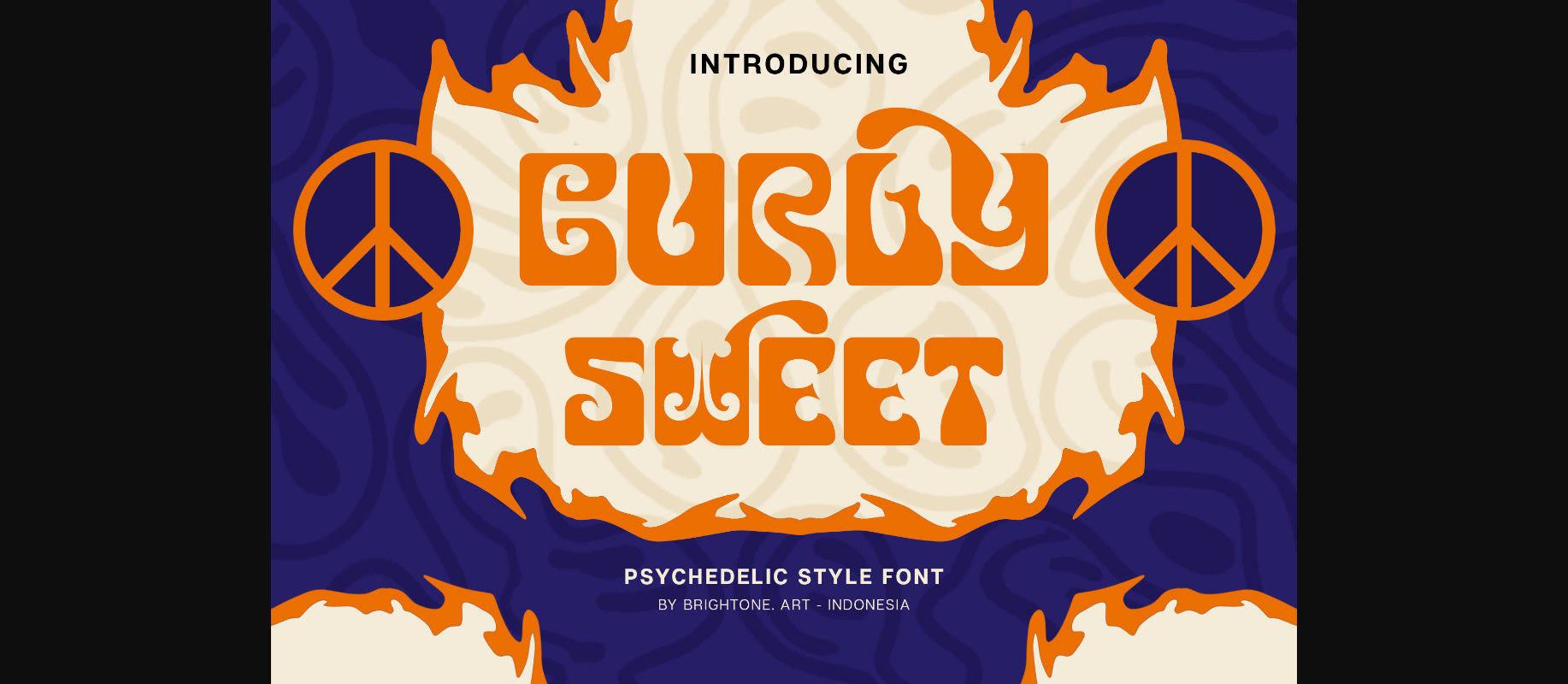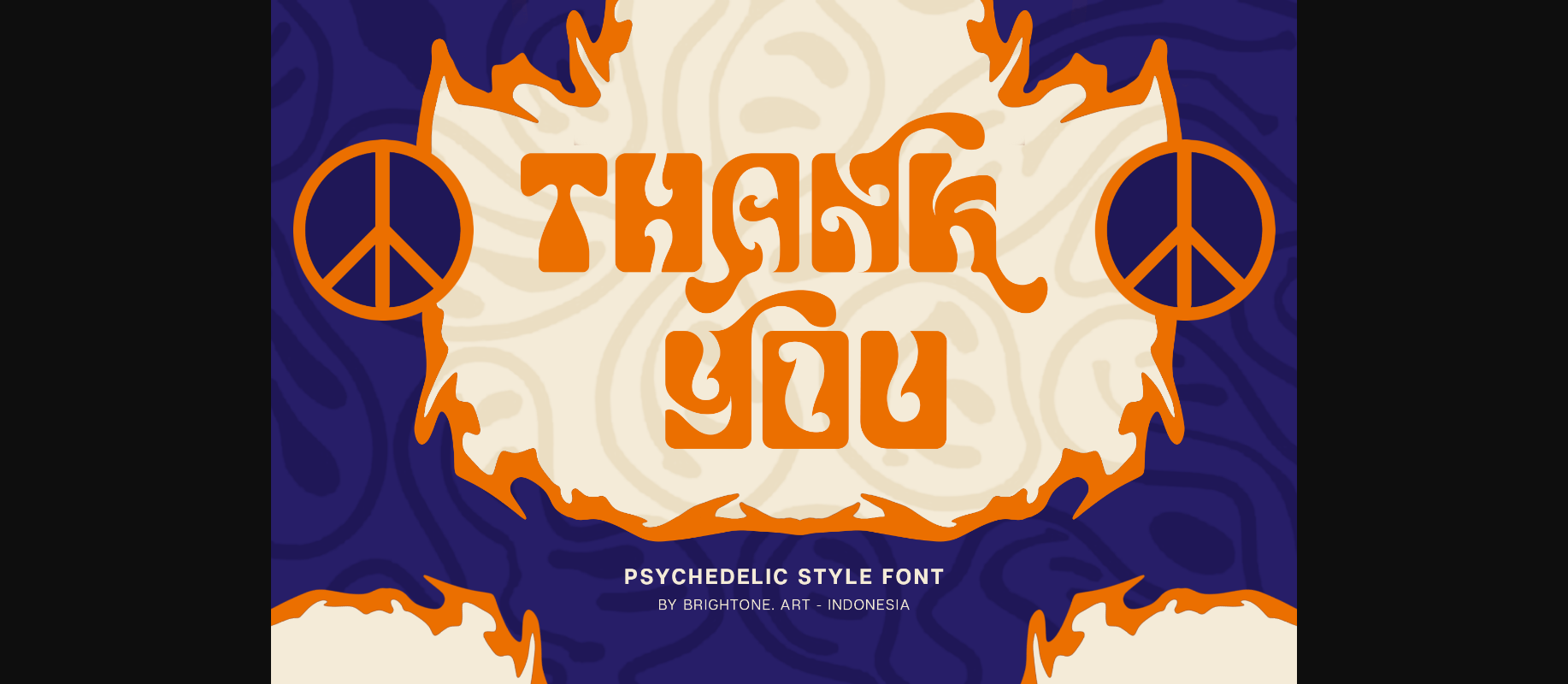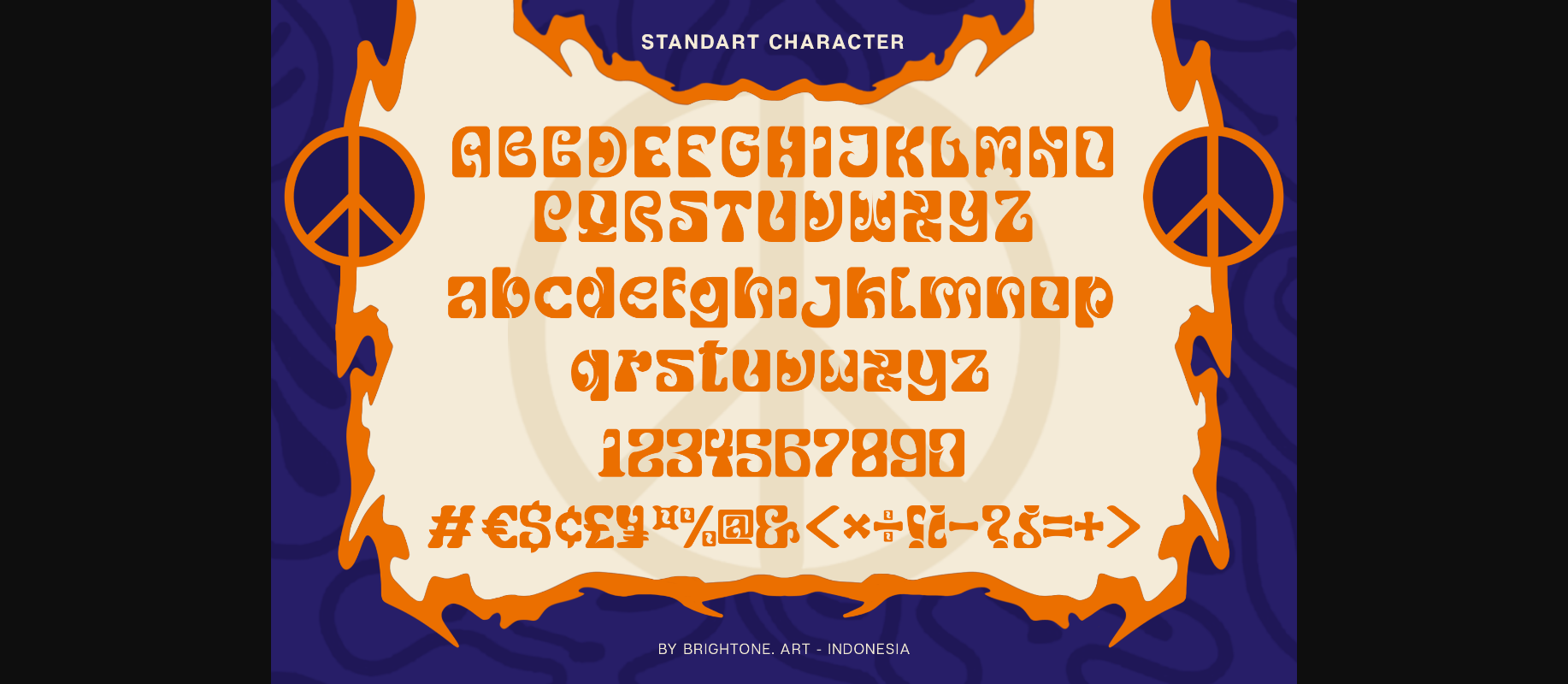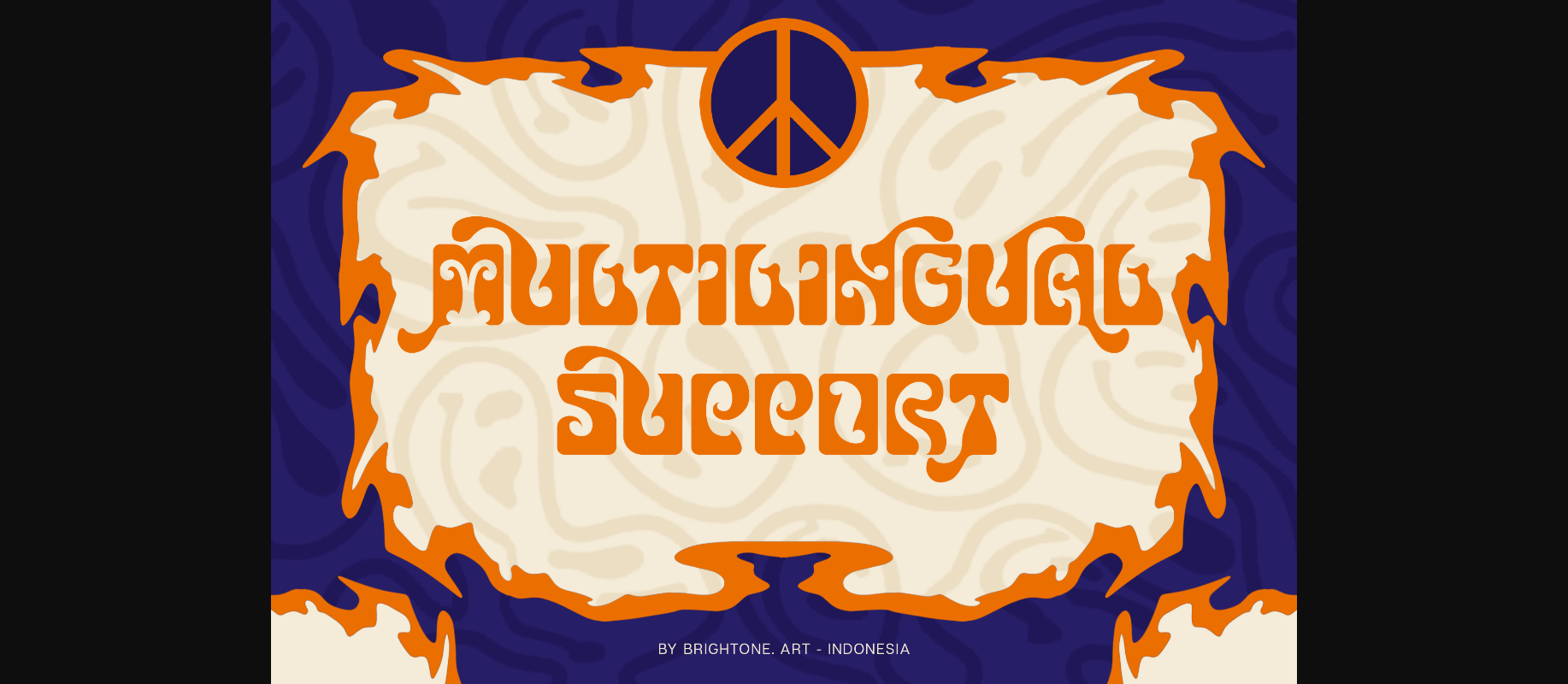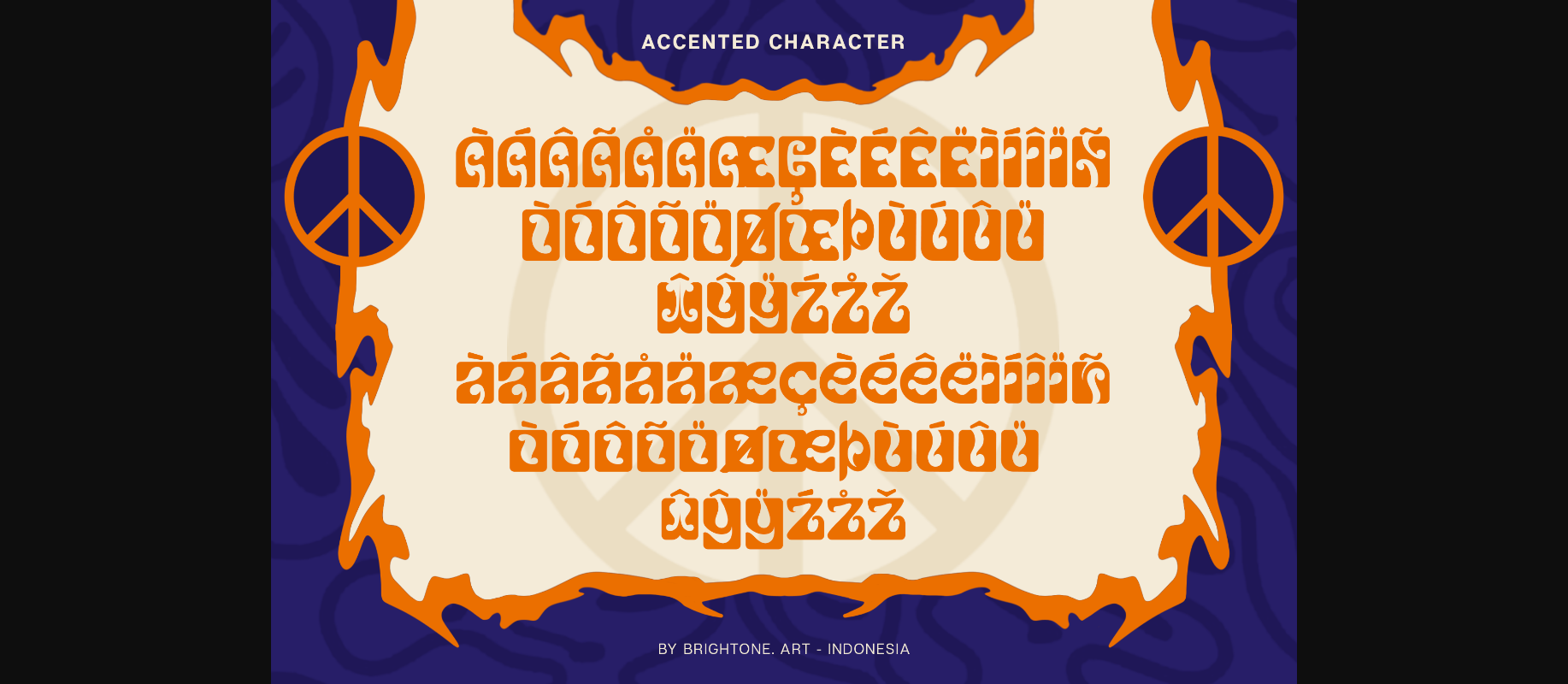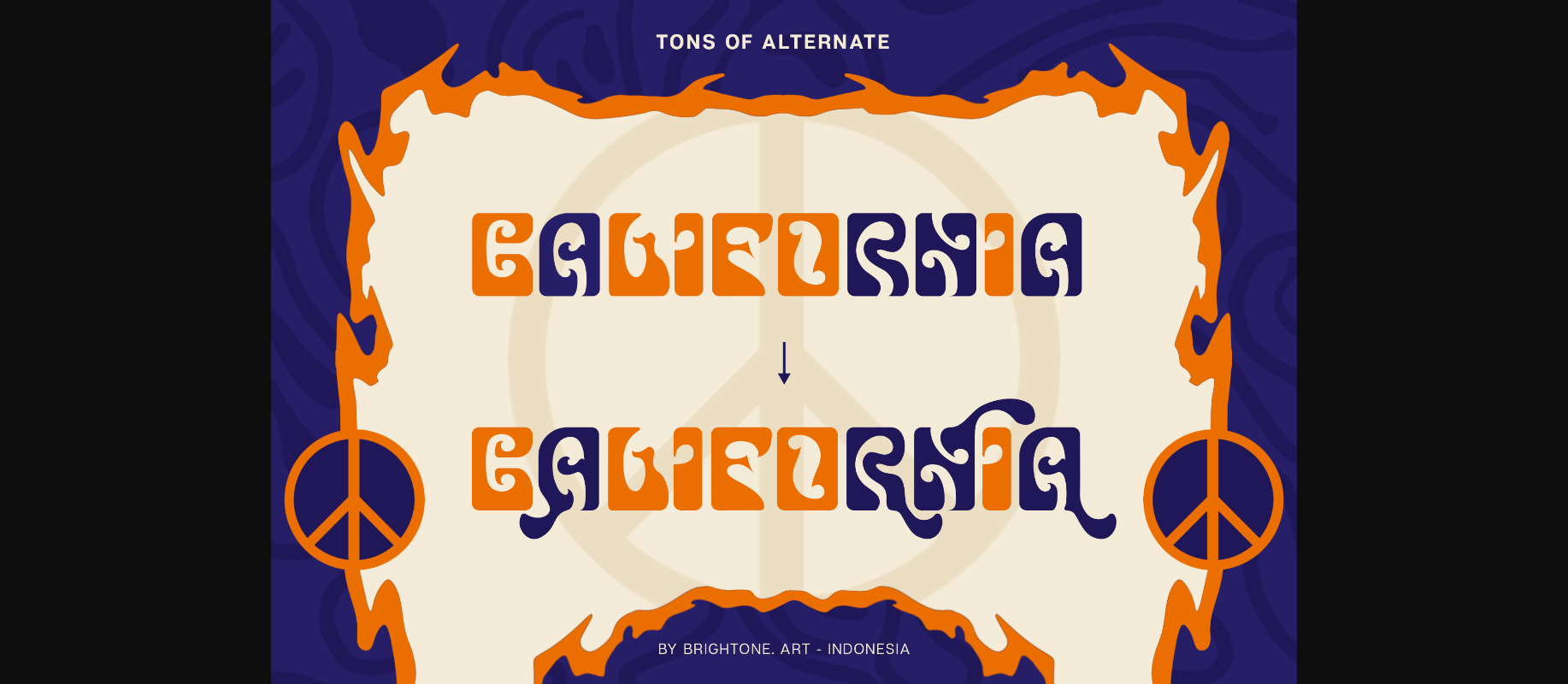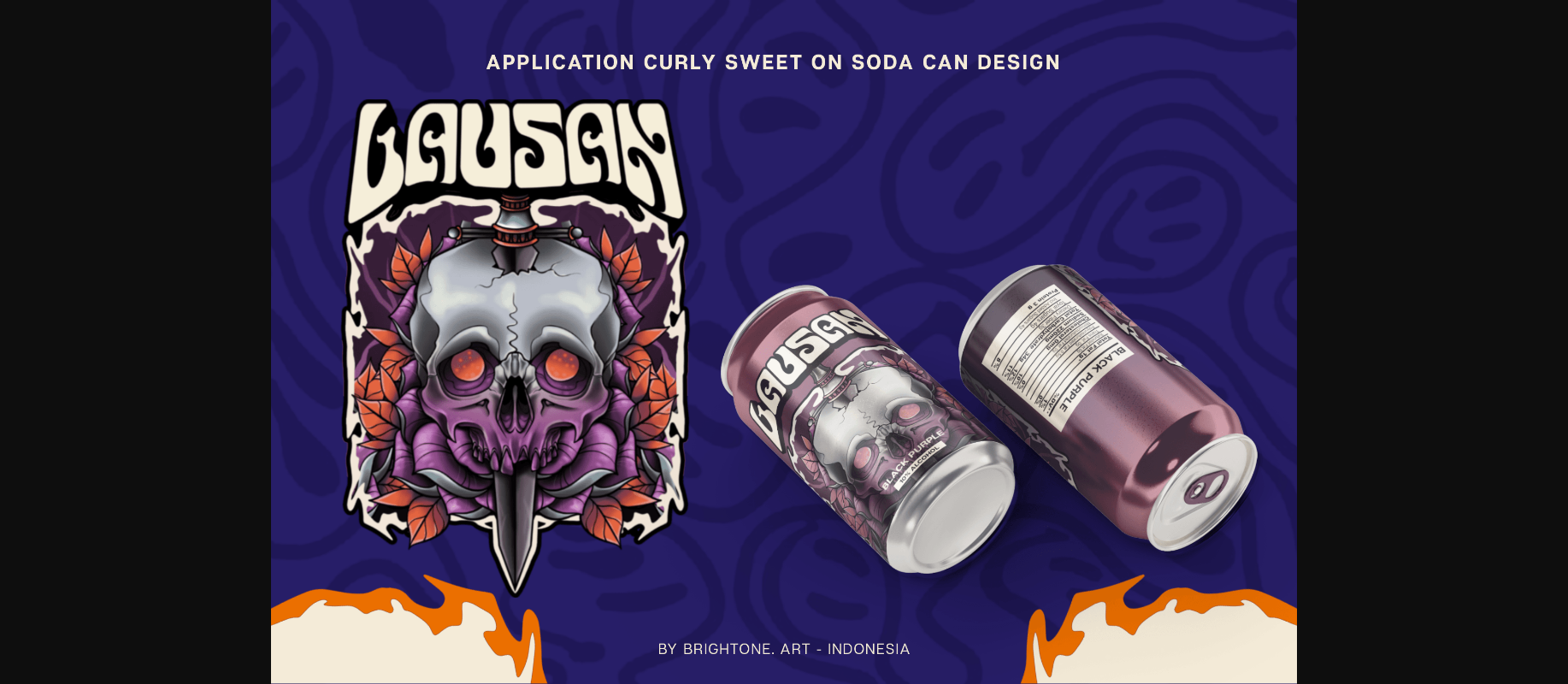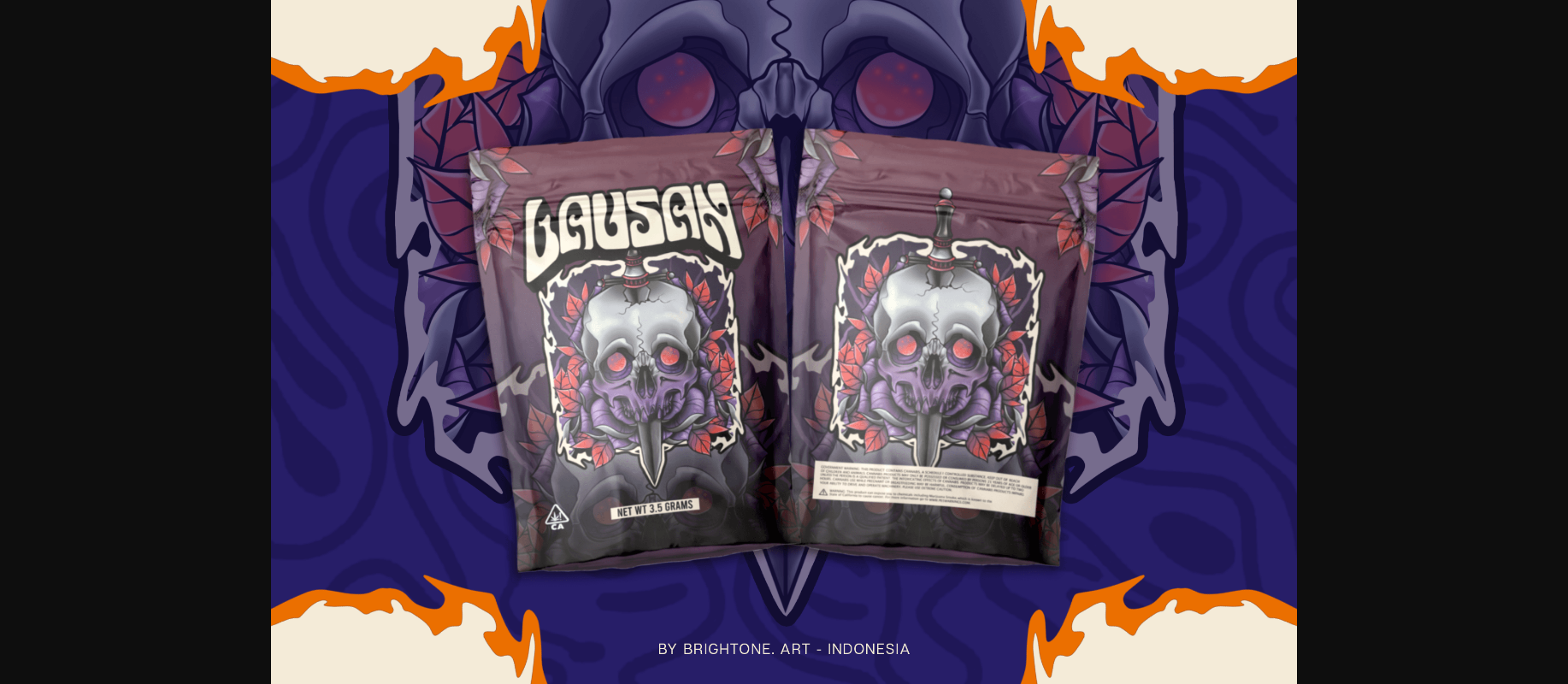
Curly Sweet Font
About Curly Sweet Font
Curly Sweet is a psychedelic font with good style and unique touch. This font is suitable for all your logo lettering, logos, labels, packaging, stickers, and branding purposes.